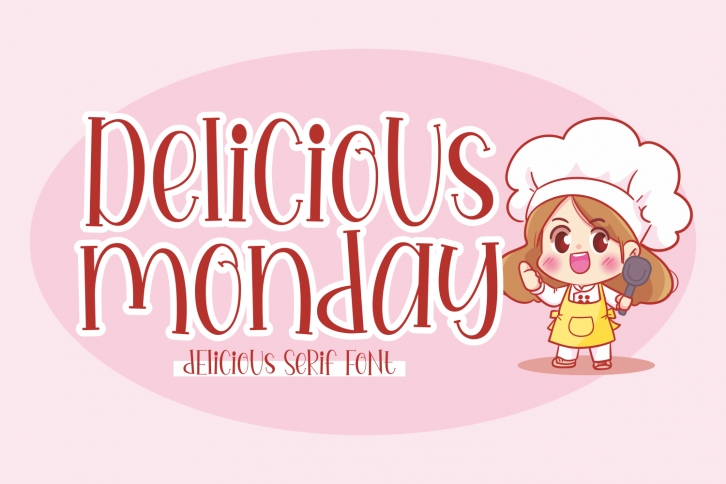
Delicious Monday is a delicious and playful serif font that you can use for hospitality menus, food articles, websites, culinary blogs, social media posts, ads, and more.